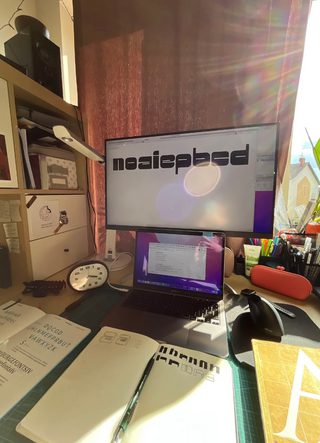
Patrycja Walczak on the alarm clock that became Poltik
Patrycja Walczak is the winner of the ninth Gerard Unger Scholarship awarded in 2023 by TypeTogether to talented type designers. Her experimental font Poltik, inspired by the retro aesthetics of Polish product design, succeeded among this year’s record number of entries. We spoke to Patrycja about the boundaries of readability, calligraphy in her DNA, and the alarm clock found in her grandfather’s drawer.
What was the first thing that came to your mind when you learned you had been awarded the Gerard Unger Scholarship?
I wasn’t expecting it at all! It came as a surprise when I was in Berlin on a break. I was excited TypeTogether saw the potential in those lettershapes and understood the retro vibe I was going for. Also, I am thrilled to be able to learn from TypeTogether and that the team will help me complete the project I love.
Tell us something about your background. Have you always been attracted to letters?
I always paid attention to writing. Even as a kid I used to vary the way I write in my notebook because I couldn’t decide on one style!
But I only became a real type lover during the course of my studies, especially in the Type Design Studio run by Krzysztof Kochnowicz and Viktoriya Grabowska at Magdalena Abakanowicz University in Poznań, Poland. I figured out that making typography sensitised me visually and greatly contributed to my growth in various aspects of graphic design.
Only recently, I also learned that my great-grandfather was a lettering artist. My grandmother even told me that the calligraphy brushes he owned were so precious to him, he would not allow anyone else to touch them. I love those types of stories and I feel that joining the TypeTogether team will be a nice continuation of it.
One can immediately tell from your typeface Poltik that calligraphy is in your blood and genes. It has a strong retro feeling as well.
Yes, Poltik is a display typeface inspired by design from the 1960s–1980s, especially by the design of a nightstand alarm clock that was popular in Poland during that time. I stumbled upon the clock when my grandfather was looking for something in his drawer. I grabbed it and immediately fell in love with the design, especially the elegant yet funky numerals. I was surprised that something so beautiful had been sitting in my grandfather’s drawer for nearly 40 years.
Did you manage to find out more about the original design of the numerals?
I was indeed looking for the designer to find out if the typeface existed somewhere else, but there was no information about it so I decided to create my own interpretation.
From existing numbers on the alarm clock, I made a grid and tried to preserve thick horizontals with a thin element somewhere inside the characters. I was focused on maintaining the flow of the existing numbers but also bringing in that retro feel and making the letters consistent. I’m amazed how such a small decision to open a random drawer would lead me to this huge opportunity.
We’ve used the term “retro” in this conversation, so how would you define it?
I think it refers to something that aims to have an older look but is actually designed now. Maybe also for something that is old but cool and solid so we can also enjoy it. I think it’s a positive term — some form of tribute to well-established design thinking of the past era.
And what does it mean to you personally? You didn’t live through the time when your treasured alarm clock was designed. So what feelings does the aesthetics of your parents’ and grandparents’ childhood evoke in you?
It was the time of the Polish People’s Republic with the strong influence of socialist realism in architecture. The overall design was functional and utilitarian, with a limited colour palette and bold, simple shapes. Most of the consumer goods were produced locally and unified visually.
I vaguely experienced the spirit of that time period by watching how it changed. I’m sure I romanticise that time, but based on the photos, stories, and music from it, I feel a kind of positive nostalgia about it.
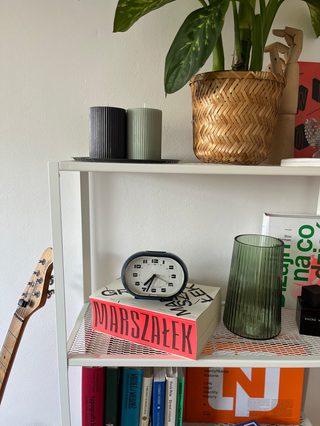
How finished do you consider Poltik to be at the moment?
Poltik has the basic set of characters used in the Polish language in a regular and italic style. I think the overall design is decided at this point, but it needs some tweaks here and there for me to be fully happy with the basic set. From this point, I feel I can go in many directions and I’m excited to explore all the possibilities
Do you have a particular idea of that direction? How would you like Poltik to improve over the course of the scholarship?
I would like to expand it to the full Latin alphabet, add ligatures, and multilingual diacritics. I plan to create various styles and weights so it can be used in many different design scenarios. I want to play with it and take it to extremes, see where the boundaries of readability are, and find out what more I can do with it.
Patrycja Walczak is a Polish graphic designer, currently finishing her Master’s degree at Magdalena Abakanowicz University in Poznań, Poland. In 2022 she took part in the Erasmus program at the National College of Art and Design in Dublin, Ireland. The main focus of her studies is letter design where she explores the power of typography in branding and communication. She also tries many different areas of design to keep her mind fresh and excited.